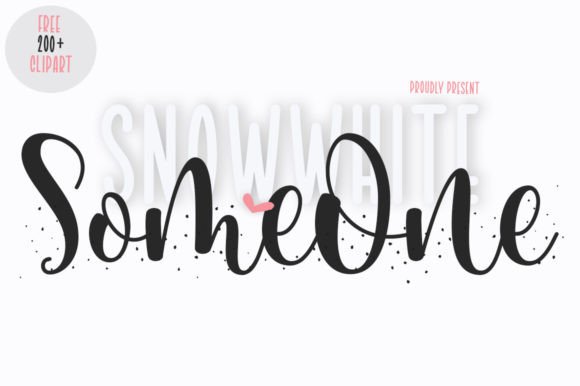
Introducing Someone Snowwhite Font, the ultimate choice for those seeking the perfect font to bring their design projects to life! Crafted by the talented Fillo Graphic, this font is an absolute game-changer in the world of typography.
Someone Snowwhite is not just your ordinary font; it's a dynamic duo that consists of both a script and a sans serif style. With this font at your fingertips, you have the power to create stunning and captivating designs that will leave a lasting impression.
Are you tired of ordinary and mundane fonts that fail to make an impact? Look no further! Someone Snowwhite Font is here to elevate your designs to new heights. Its unique and eye-catching script style will effortlessly add a touch of luxury and elegance to any project you're working on.
But what sets Someone Snowwhite Font apart from the rest? It's not just about its visually stunning appearance, but also its incredible functionality. This font is PUA encoded, which means you have easy access to an array of amazing glyphs and ligatures. Say goodbye to limitations and hello to endless creative possibilities!
When it comes to creating quotes on images, Someone Snowwhite Font is the absolute best choice. Its exquisite script style beautifully complements any quote, turning it into a work of art. Whether you're designing inspirational social media posts or crafting stunning quote prints, this font will make your words truly shine.
But that's not all! Someone Snowwhite Font is incredibly versatile and can be used in a wide range of design projects. From logos and branding materials to wedding invitations and editorial layouts, the possibilities are endless. Let your creativity run wild and watch as this font brings your visions to life.
The captivating and emotional impact of Someone Snowwhite Font cannot be overstated. It has the power to evoke a sense of elegance, sophistication, and beauty, instantly capturing the attention of anyone who lays eyes on your designs. Don't settle for less when you can have the best font for quotes on images.